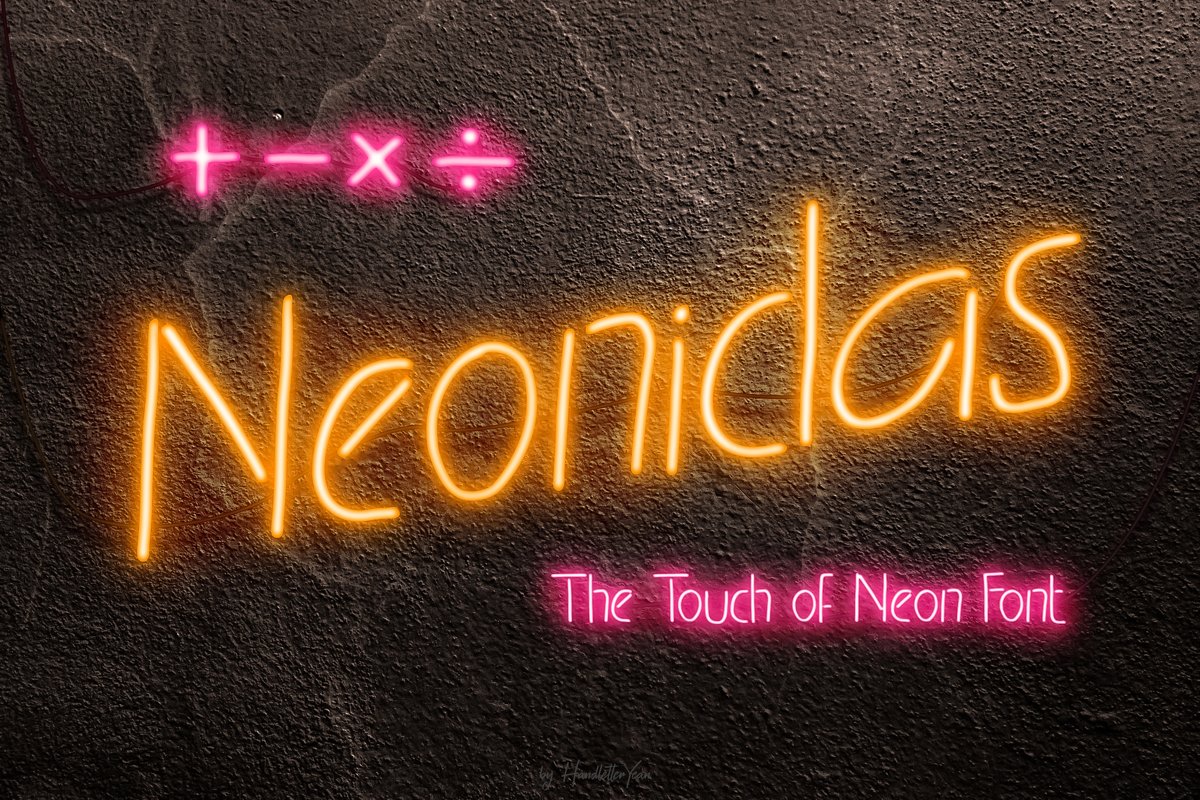
Neonidas
Light of happiness often comes in the form of neon lights. Be free to feel joyous, move your body to party, give your brightest smile to everyone you meet. Use this font to share that sparks of happiness within you, for this font looks amazing for packaging, business card, invitation, posters, labels, and any kind of design. Get this font now.